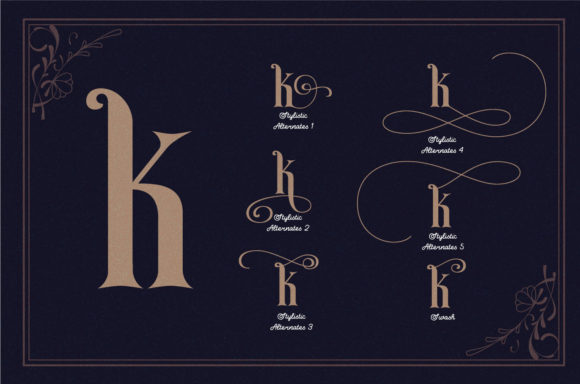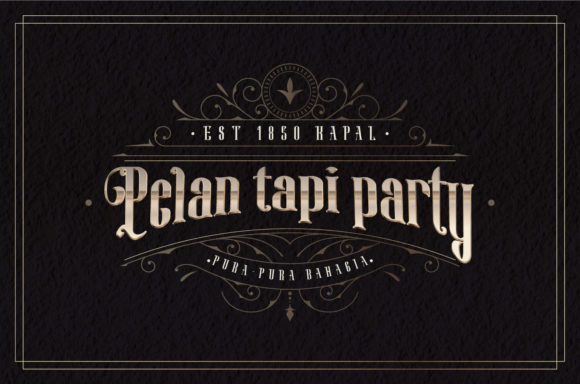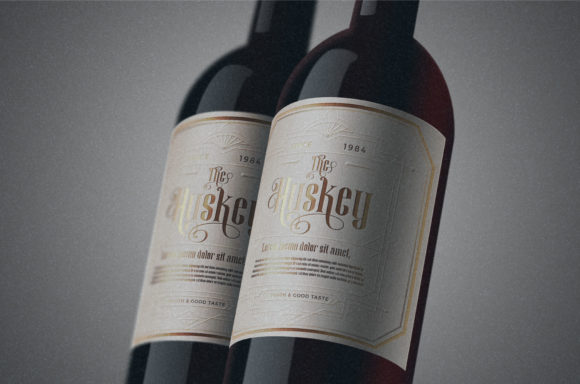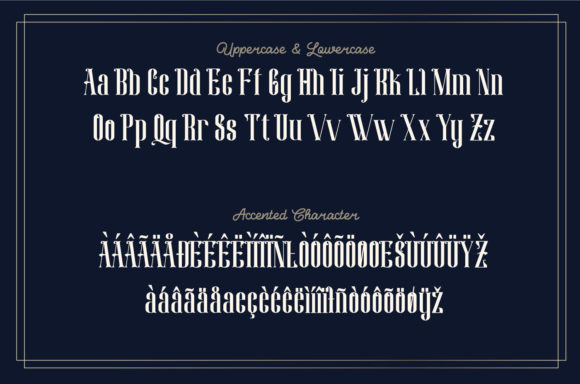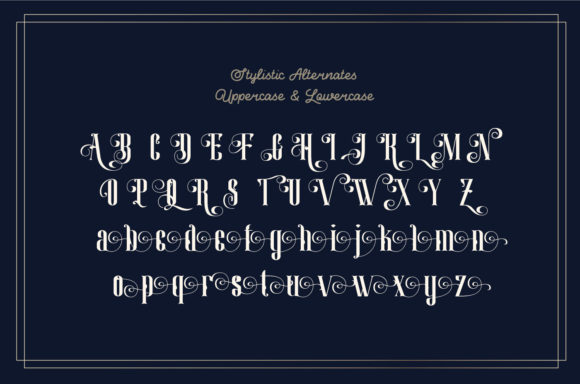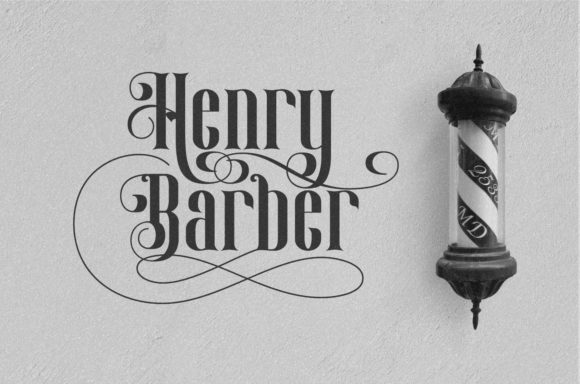
Introduction to Qustyle Font
Have you ever found yourself rummaging through your old family archives, uncovering dusty letters and faded photographs? It’s a moment that sparks creativity, transporting you to a bygone era where craftsmanship and attention to detail were paramount. This nostalgic feeling is precisely what the Qustyle Font embodies, a stunning blackletter font that combines vintage charm with an exquisite vibe.
For designers, discovering a high-quality design resource like Qustyle Font can be a game-changer. Whether you’re working on a creative project that requires a unique touch or simply need a font that exudes sophistication, Qustyle Font is an excellent choice. Its versatility makes it suitable for labels, product packaging, logos, watermarks, and more.
Key Features of Qustyle Font
- High-quality, professional font design ideal for creative projects and design resources.
- Unique, hand-crafted design with a modern aesthetic, perfect for modern design projects.
- Perfect for use in logos, branding materials, and other creative projects requiring a high-quality font.
Honest Review: Qustyle Font
I recently stumbled upon the Qustyle Font, a design resource that caught my attention with its unique and playful style. As a designer, I was eager to put it to the test in a creative project.
- High-quality typography: The Qustyle Font boasts crisp, clear letterforms that make it perfect for body text or headings.
I was impressed with how well the Qustyle Font performed in my design project. It added a touch of personality to the layout and helped to create a visually appealing design.
- Limited language support: Unfortunately, the Qustyle Font only supports a limited range of languages.
- No bold or italic styles: While the font has a unique style, it would be nice to have bold or italic variations for added flexibility.
Overall, I’m impressed with the Qustyle Font and would recommend it to designers looking for a high-quality, free font with a unique style.
Tips for Getting the Most Out of Qustyle Font
To get the most out of Qustyle Font, use it in conjunction with other high-quality design resources, such as images and graphics. This will help you create a cohesive and visually appealing design. You can also experiment with different font sizes, styles, and colors to find the perfect combination for your creative project.
Qustyle Font is a versatile design resource that can be used in a variety of creative projects, including logos, brochures, business cards, and presentations. Its transparent background and high-quality design make it an ideal choice for designers who want to add a touch of sophistication to their work.